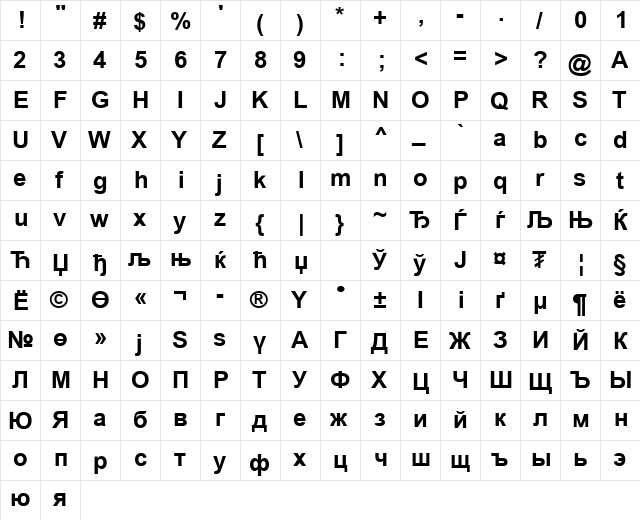
Arial Mon Bold
Design Context for Arial Mon Typeface
Arial Mon offers clean, dependable letterforms without strong stylistic allegiance, making it a practical choice for designers who need flexibility. Its bold stroke weight gives it real presence on the page.